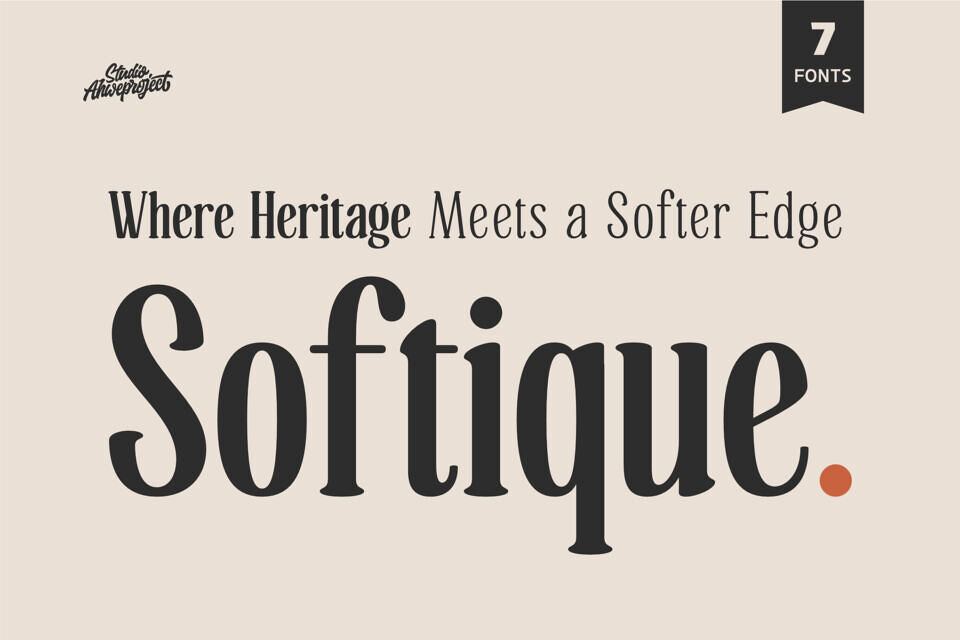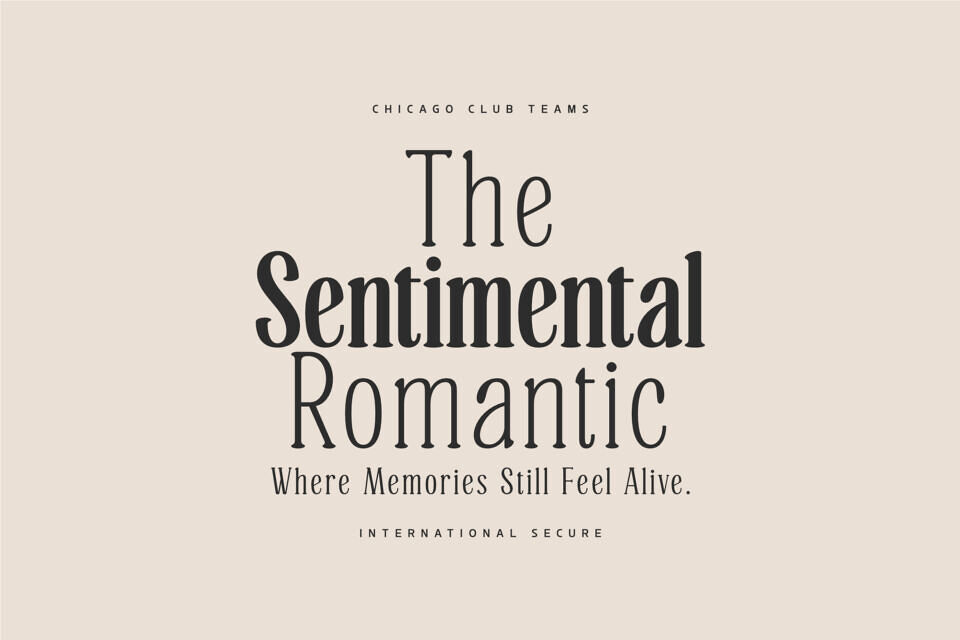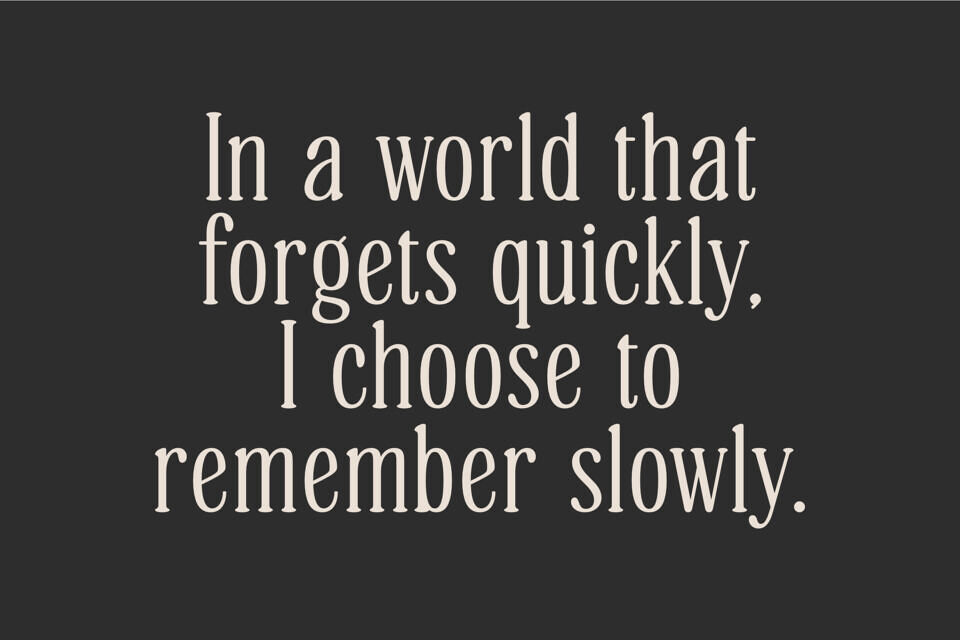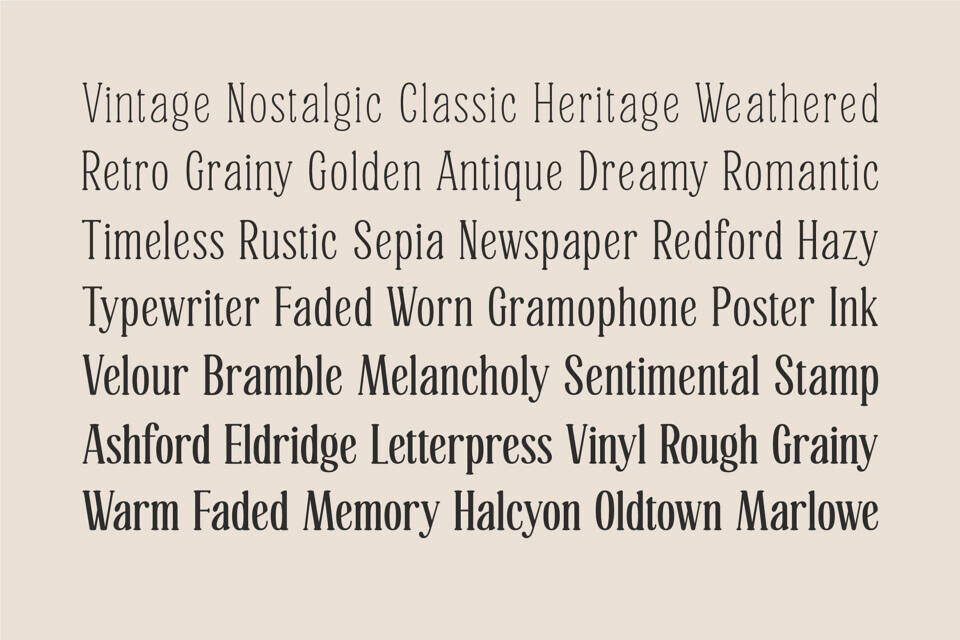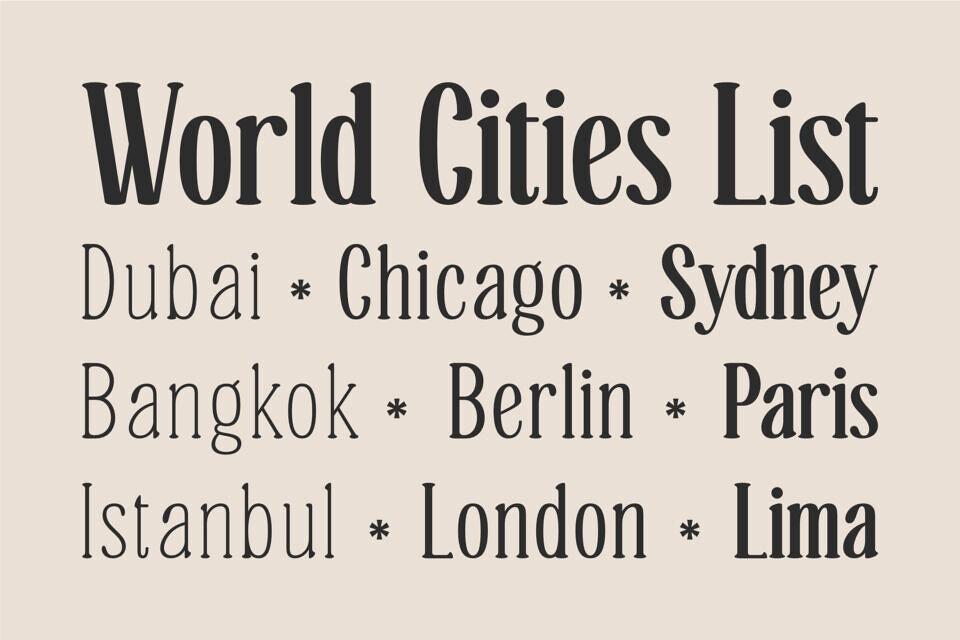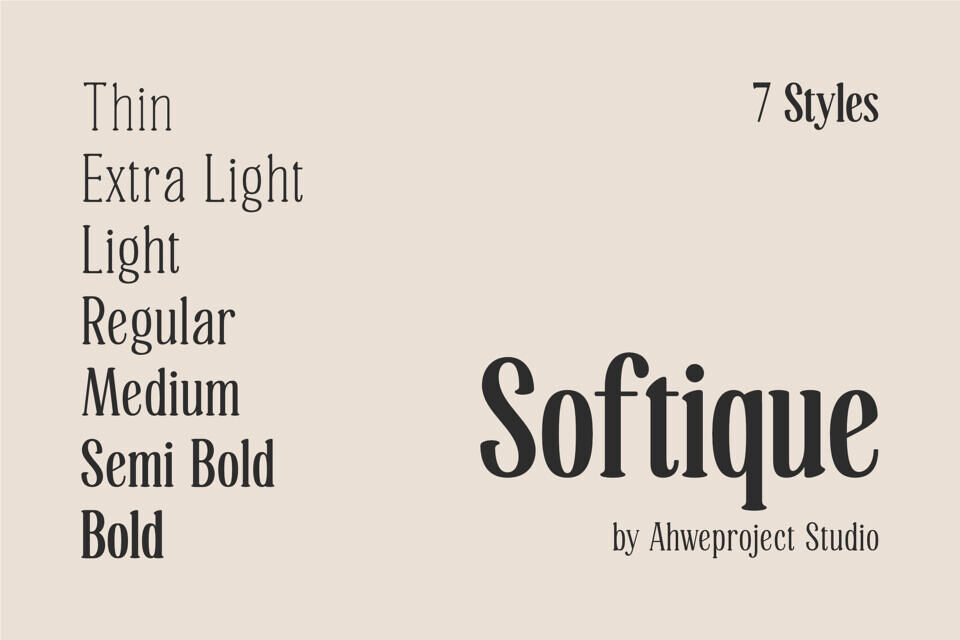
Softique is a refined blend of classic elegance and modern softness. Designed for creators who want a graceful look without feeling rigid, this font brings a warm heritage touch with smooth, character-rich letterforms.
With its soft serif details and balanced proportions, Softique feels premium yet approachable—perfect for designs that aim to look classy without being distant. This isn’t just a beautiful font. It’s a tool to elevate perception. Perfect for: Branding, logos, wedding invitations, packaging, social media, editorial layouts, fashion projects, and any design that needs a classy touch without overdoing it.